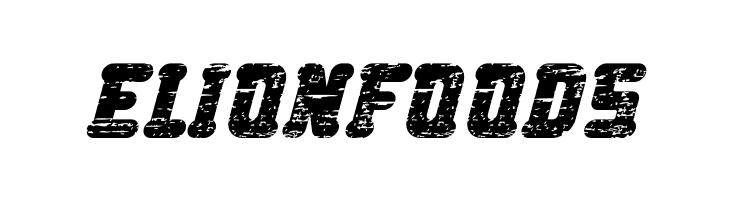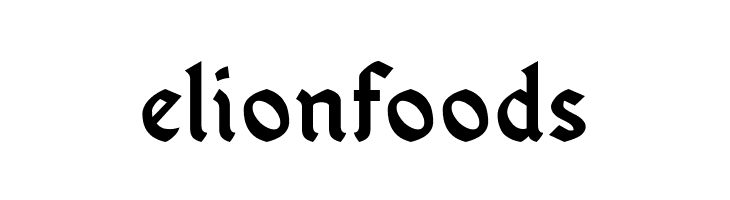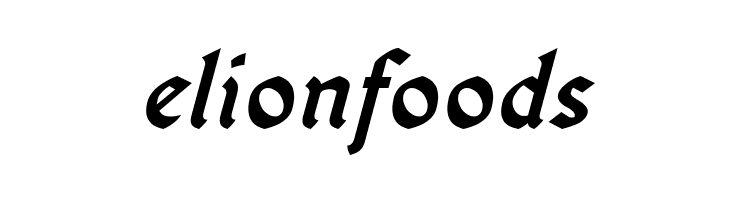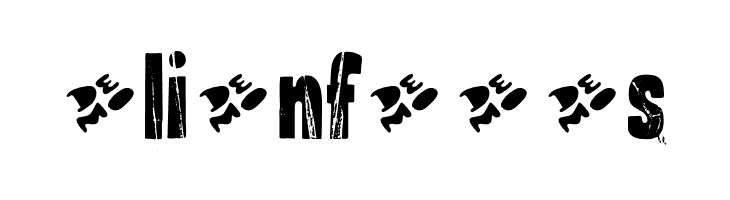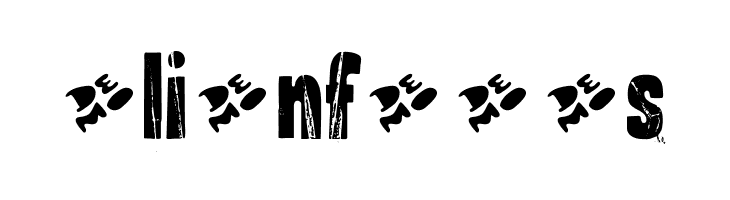
A bold, distressed font with a grunge texture and vintage appeal.
A bold, italic, vintage-style font with distressed, textured characters.
A bold, classic serif font with high contrast and elegant serifs.
A bold, gothic-inspired font with sharp, angular lines and strong presence.
A bold, italicized font with sharp, angular, calligraphic influences.
A bold, distressed font with a grunge texture and blocky structure.